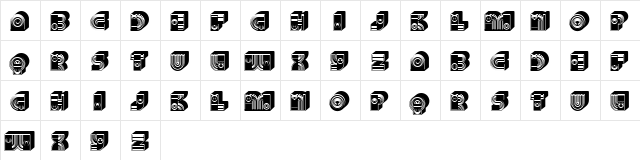
Fantasy Regular Font Preview
Fantasy Regular
Design Context for Fantasy Typeface
Fantasy is a composed and adaptable typeface that performs quietly and consistently across a wide range of design contexts.